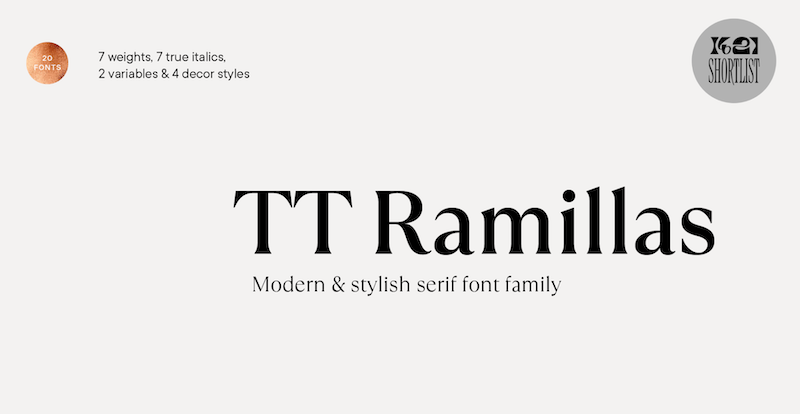
TT Ramillas is a fully reconsidered high contrast transitional serif, which is perfectly adapted to modern realities and requirements. This font is perfect for use in magazines, in the fashion industry, in the branding of premium goods and services. TT Ramillas is quite versatile and suitable for use both in headings and in text arrays. In addition, we have done manual hinting in the typeface, and now it can be used with a clear conscience in the web and applications. --- THIS IS A TRIAL FONT FOR PERSONAL USE ONLY. If you want to use TT Ramillas in published or commercial projects you will have to buy this font: https://typetype.org/fonts/tt-ramillas --- More TypeType fonts and trials: https://typetype.org/fonts More about licensing: https://typetype.org/licensing Contact us: commercial@typetype.org We're on social media: instagram.com/typetype.foundry behance.net/typetype twitter.com/_TYPETYPE_ |